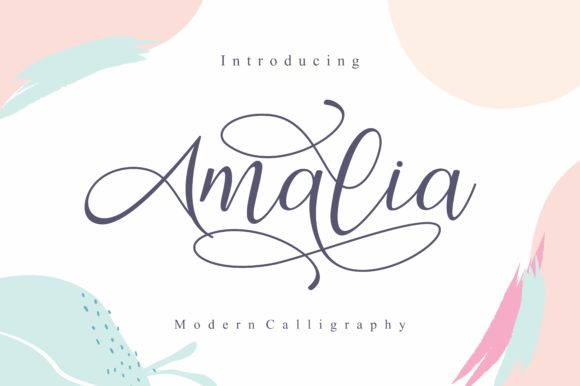
Introducing Amalia, the captivating script font that will transform your designs into breathtaking works of art. With its enchanting swashes and graceful ligatures, Amalia adds a touch of elegance and romance to every project it graces. Whether you're crafting stunning logos, creating eye-catching social media posts, or designing heartfelt invitations, Amalia will elevate your creations to new heights of beauty.
Immerse yourself in the world of Amalia and experience the joy of crafting unique and inspiring designs. Its versatility knows no bounds, making it the perfect choice for a wide range of projects, from elegant wedding invitations to playful birthday cards. Unleash your creativity and let Amalia guide you towards artistic greatness.
With Amalia by your side, your designs will radiate charm and sophistication. Its delicate curves and flowing lines will capture the attention of your audience, leaving them mesmerized by the sheer beauty of your creations. Amalia is more than just a font, it's a gateway to a world of artistic possibilities, where your imagination can soar and your designs can flourish.